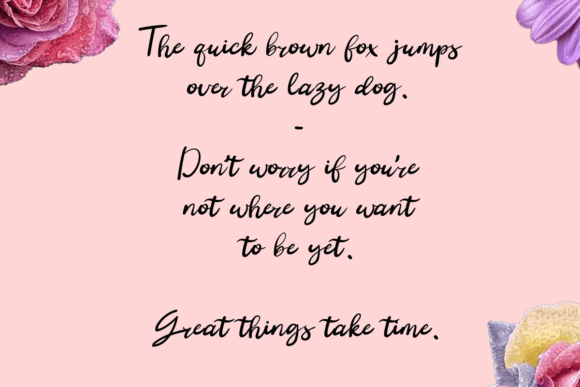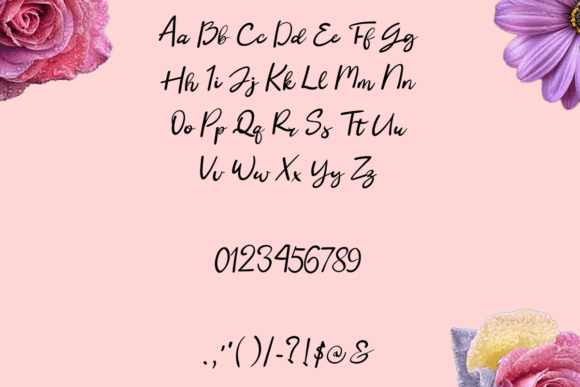
The Elusive Perfect Font: My Encounter with Florentina
I still remember the design project that had me on the hunt for the perfect font. I was working on a sophisticated branding project for a high-end boutique, and I needed a font that exuded elegance and style. After hours of scrolling through font libraries and testing out different options, I stumbled upon Florentina – a fancy font that looked like handwriting with a brush. It was love at first sight! ✨
An Honest Review of Florentina
• ✨ Elegant and stylish, perfect for projects that need a touch of sophistication
• ✅ Beautifully crafted to resemble handwriting with a brush
• 💫 Works well for both digital and print projects
• 🎨 Highly versatile and can be used for a wide range of design applications
While Florentina is an amazing font, there are a few things to keep in mind: 🤔
• ⚠️ It may not be the best choice for body text or long-form content, as it’s quite ornate and may be difficult to read in large quantities
• ⚠️ Some characters may not work well at very small sizes, so it’s best to use it at larger sizes (24pt or larger)
The Story Behind Florentina
Florentina was designed by a talented typographer who was inspired by the art of calligraphy. With a passion for elegant and sophisticated design, the typographer set out to create a font that would capture the essence of handwritten script with a brush. After months of careful craftsmanship, Florentina was born – a beautiful font that’s perfect for projects that need a touch of luxury and refinement.
Author Pixova Creative
Q: What type of projects is Florentina best suited for?
A: Florentina is perfect for projects that need a touch of sophistication and elegance, such as luxury branding, wedding invitations, and high-end advertising.
Q: Is Florentina a difficult font to read?
A: While Florentina is an ornate font, it’s still relatively easy to read. However, it may not be the best choice for body text or long-form content.